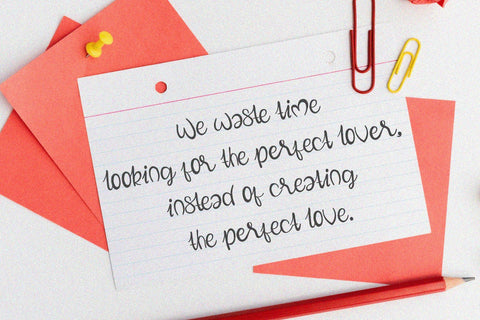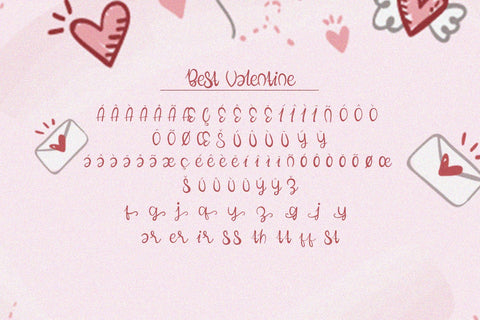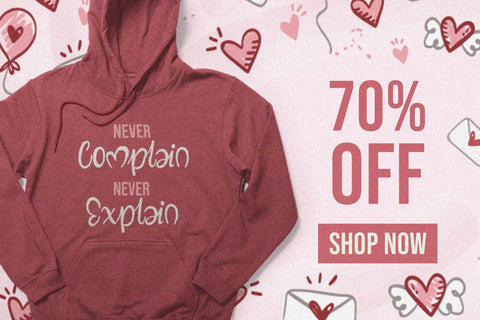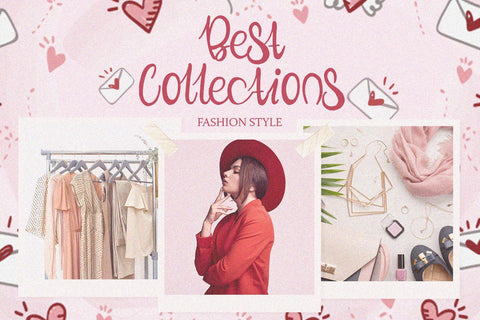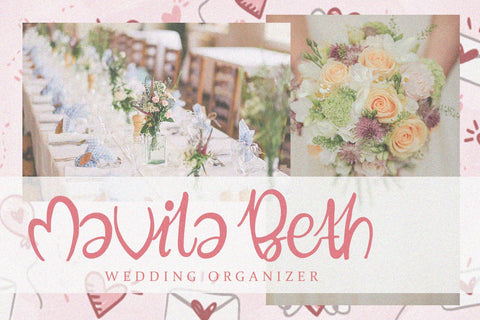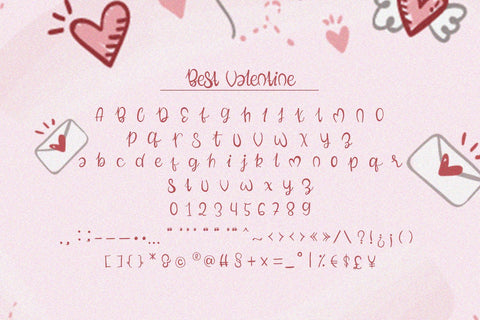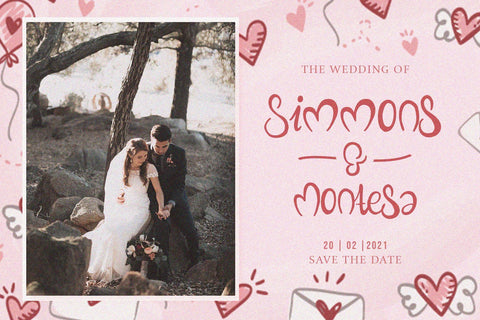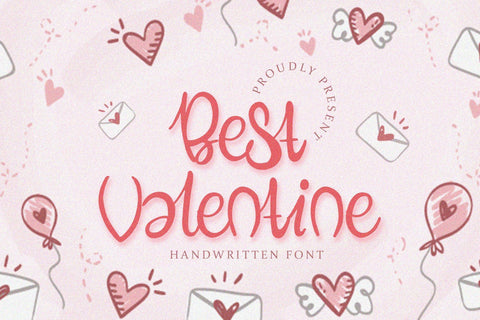
Best Valentine - Handwritten Font
Best Valentine is a stunning and cute handwritten font with authentic and casual feels. It will be perfectly used for Branding, Logo Design, Lettering, Logotype, Clothing, Poster, magazine, packaging, posters, shopping bags, t-shirts, book covers, photography, special events, and other design project.